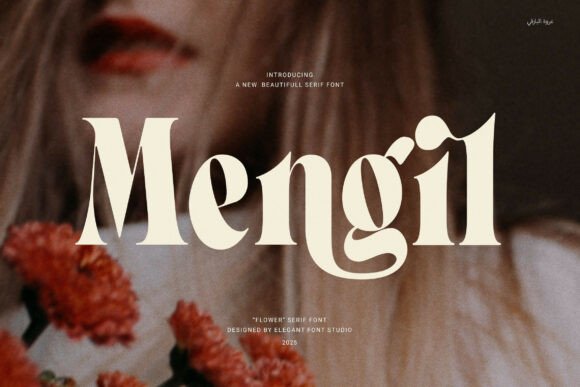
Mengil Font: Elevate Your Brand with a Clean and Stylish Typeface
In the world of modern branding, typography plays a crucial role in making a lasting impression. A well-designed font can elevate your brand’s visual identity and set it apart from the competition. Introducing Mengil Font, a clean and stylish typeface designed specifically for modern branding. With its smooth and neat shape, Mengil Font is perfect for a wide range of design applications, from logos to websites.
Key Features of Mengil Font
- Smooth and Neat Shape: Mengil Font boasts a smooth and neat shape that fits well in many types of designs. Its clean lines and minimal ornamentation make it an excellent choice for brands looking for a modern and sophisticated look.
- Well-Balanced Letterforms: Each letterform in Mengil Font is carefully crafted to ensure optimal readability. The font’s well-balanced design makes it easy to read, even at small sizes.
- Functional Ligatures: Mengil Font comes with functional ligatures that help your text look more natural and flow better. This feature is particularly useful for brands that want to create a cohesive and polished visual identity.
Design Applications for Mengil Font
Mengil Font is an incredibly versatile typeface that can be used in a wide range of design applications. Here are a few examples:
- Logos: Mengil Font’s clean and stylish design makes it an excellent choice for logos. Its smooth shape and well-balanced letterforms ensure that your brand’s logo looks professional and eye-catching.
- Websites: With its optimal readability and functional ligatures, Mengil Font is perfect for web design. Use it to create a cohesive and polished visual identity for your website.
- Print Materials: Mengil Font can also be used in print materials such as brochures, flyers, and business cards. Its clean design and well-balanced letterforms make it an excellent choice for any print project.
Benefits of Using Mengil Font
So, why choose Mengil Font for your branding needs? Here are just a few benefits of using this clean and stylish typeface:
- Professional Look: Mengil Font gives your work a classy and polished look that’s sure to impress. Its smooth shape and well-balanced letterforms make it an excellent choice for brands that want to look professional.
- Easily Readable: With its well-balanced letterforms and functional ligatures, Mengil Font is easy to read, even at small sizes. This makes it an excellent choice for body text and other applications where readability is key.
- Versatile: Mengil Font is an incredibly versatile typeface that can be used in a wide range of design applications. Whether you’re designing a logo, website, or print material, Mengil Font is an excellent choice.
Mengil Font vs. Other Typefaces
So, how does Mengil Font compare to other typefaces on the market? Here are a few key differences:
- Unique Design: Mengil Font boasts a unique design that’s both clean and stylish. Its smooth shape and well-balanced letterforms set it apart from other typefaces.
- High Readability: Mengil Font is designed with readability in mind. Its well-balanced letterforms and functional ligatures make it easy to read, even at small sizes.
- Modern Look: Mengil Font has a distinctly modern look that’s perfect for brands that want to appear sleek and sophisticated.
Tips and Tricks for Using Mengil Font
Here are a few tips and tricks for getting the most out of Mengil Font:
- Use it Consistently: To create a cohesive visual identity, use Mengil Font consistently across all your design applications.
- Experiment with Font Sizes: Mengil Font looks great at a wide range of font sizes. Experiment with different sizes to find the one that works best for your design.
- Pair it with Other Fonts: Mengil Font can be paired with other fonts to create a unique and visually appealing design.
In conclusion, Mengil Font is a clean and stylish typeface that’s perfect for modern branding. With its smooth shape, well-balanced letterforms, and functional ligatures, Mengil Font is an excellent choice for a wide range of design applications. Whether you’re designing a logo, website, or print material, Mengil Font is sure to elevate your brand’s visual identity and give it a professional look.